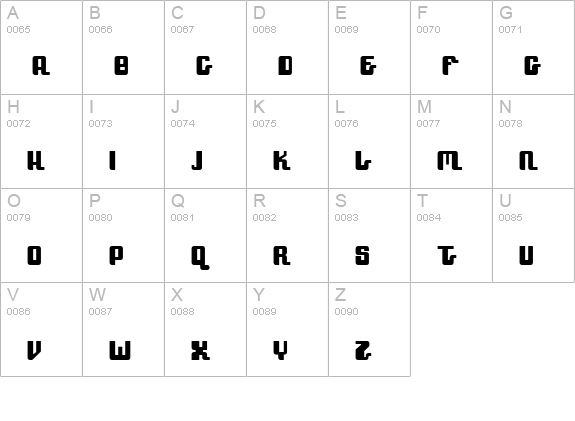
SpeedFreek Font Details
Introducing SpeedFreek, a font that embodies the essence of speed, motion, and excitement. With its sleek and dynamic letterforms, SpeedFreek is perfect for projects that require a sense of urgency and energy. Whether you're designing a racing logo, a sports poster, or a high-octane website, this font will add a touch of adrenaline to your work. But what sets SpeedFreek apart from other fonts is its unique attribute – it's completely free! Yes, you heard it right. SpeedFreek is not only visually captivating but also freely available to download at FontsMarket.com. We believe that creativity should be accessible to all, and by offering SpeedFreek for free, we hope to empower designers, artists, and enthusiasts to bring their visions to life without any limitations. Created by a team of talented typographers, SpeedFreek is meticulously crafted with attention to detail. Each letter is carefully designed to convey a sense of speed and motion, with sleek curves and sharp angles that give the font a sense of urgency and dynamism. Its versatility allows it to work seamlessly in both bold headlines and subtle body text, making it a perfect choice for a wide range of projects. With SpeedFreek, you can truly unleash your creativity and push the boundaries of design. Let your imagination run wild as you experiment with different sizes, colors, and layouts. Whether you're aiming for a futuristic look or a classic vintage feel, SpeedFreek will deliver the impact you desire. So, why wait? Download SpeedFreek now for free at FontsMarket.com and let your designs soar to new heights. Get ready to break the speed limit of typography and create stunning visuals that leave a lasting impression. Embrace the power of SpeedFreek and bring your projects to life with a font that captures the essence of speed and excitement.